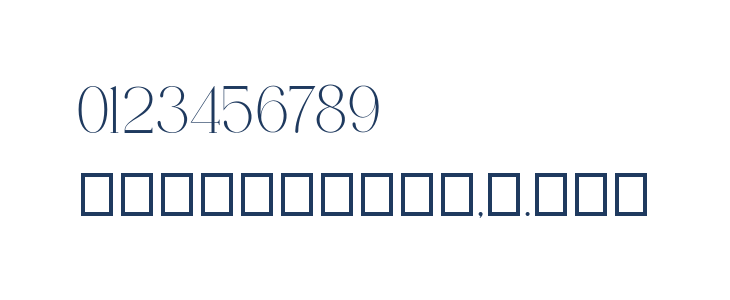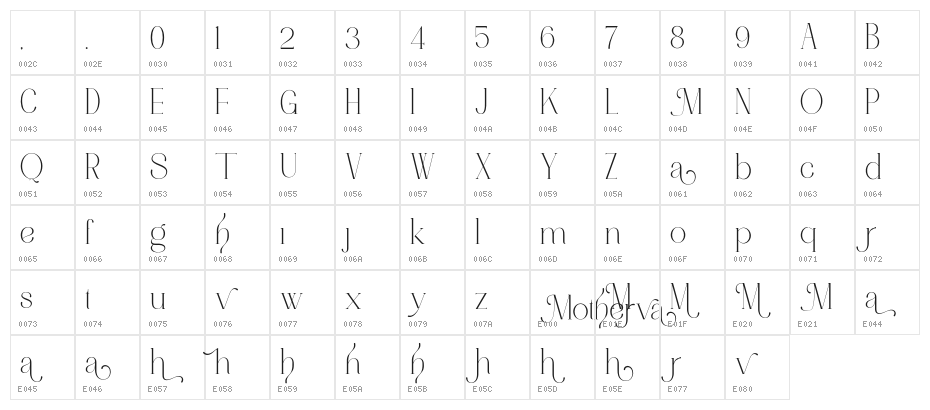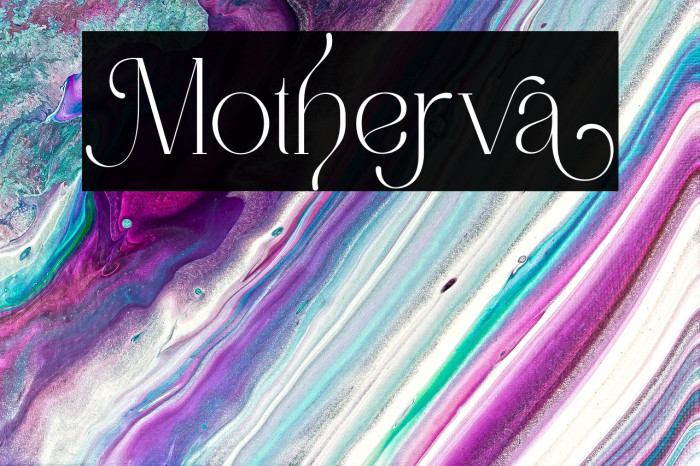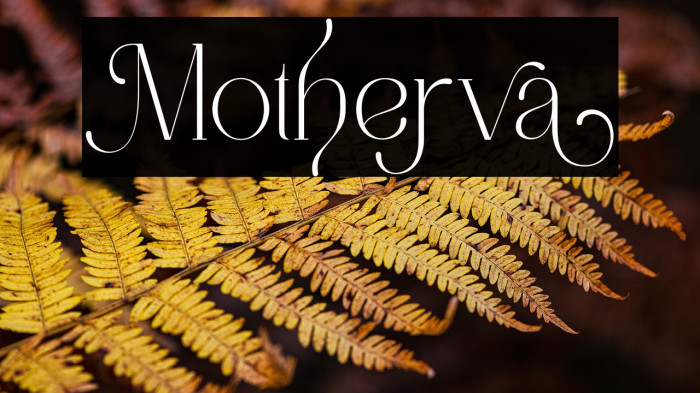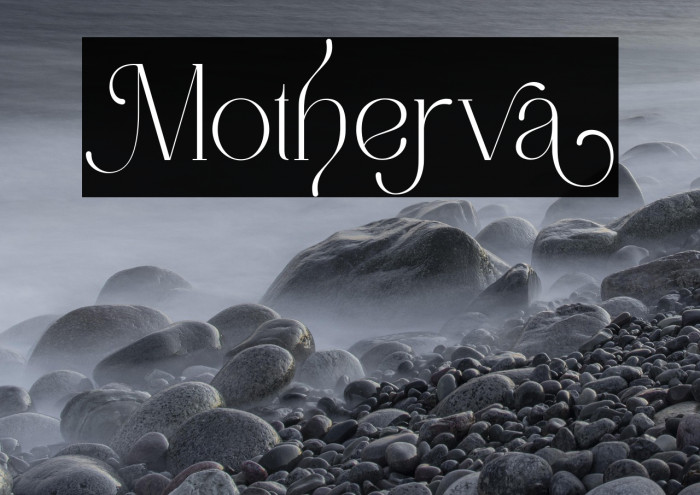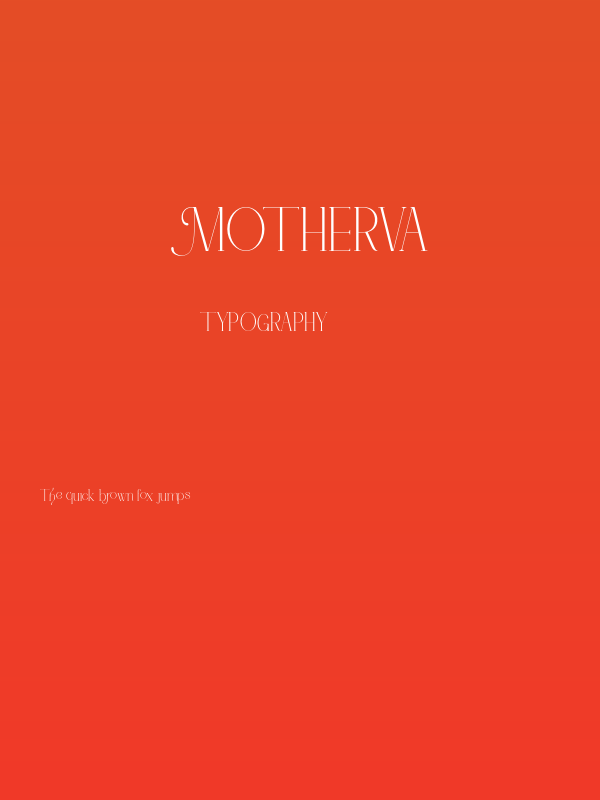
Motherva Font
Motherva Description
This elegant typeface features a refined and sophisticated design with thin, elongated strokes and subtle curves. The uppercase letters are tall and slender, exuding a sense of grace and modernity. The lowercase letters incorporate unique flourishes, adding a decorative touch that enhances the overall aesthetic. The numerals are consistent with the font's sleek style, maintaining a uniform appearance. The special characters are designed with the same attention to detail, ensuring a cohesive look across all elements. This font's delicate lines and artistic flair make it suitable for projects that require a touch of elegance and sophistication.
| Overall Style | Elegant and sophisticated |
| Use Case | Headlines, Invitations, Branding |
| Proposed Projects | Ideal for wedding invitations, luxury branding, high-end product packaging, and editorial design. |